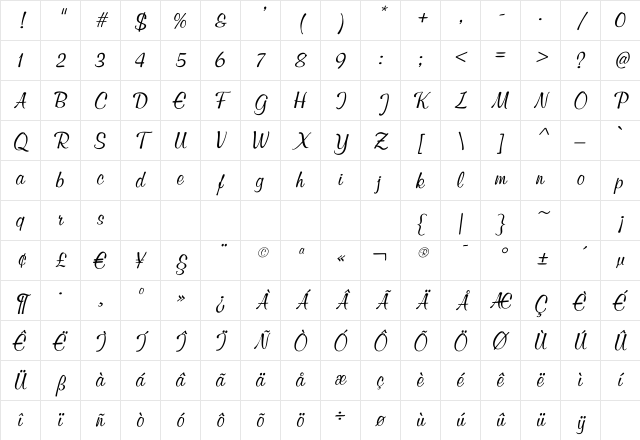
Script3 Light Free Font
Script3 Light
Design Context for Script3
Script3 flows with the natural rhythm of handwritten lettering, making it ideal for designs that call for warmth and personal expression. Its slender proportions lend an understated elegance to any composition.
Font Pairing: Combine Script3 with a simple geometric sans for maximum contrast - the tension between flowing curves and clean structure is a classic typographic pairing.
Pro Tip: Use Script3 for short runs of text - names, titles, or taglines. Extended body copy in script faces tires the eye quickly.